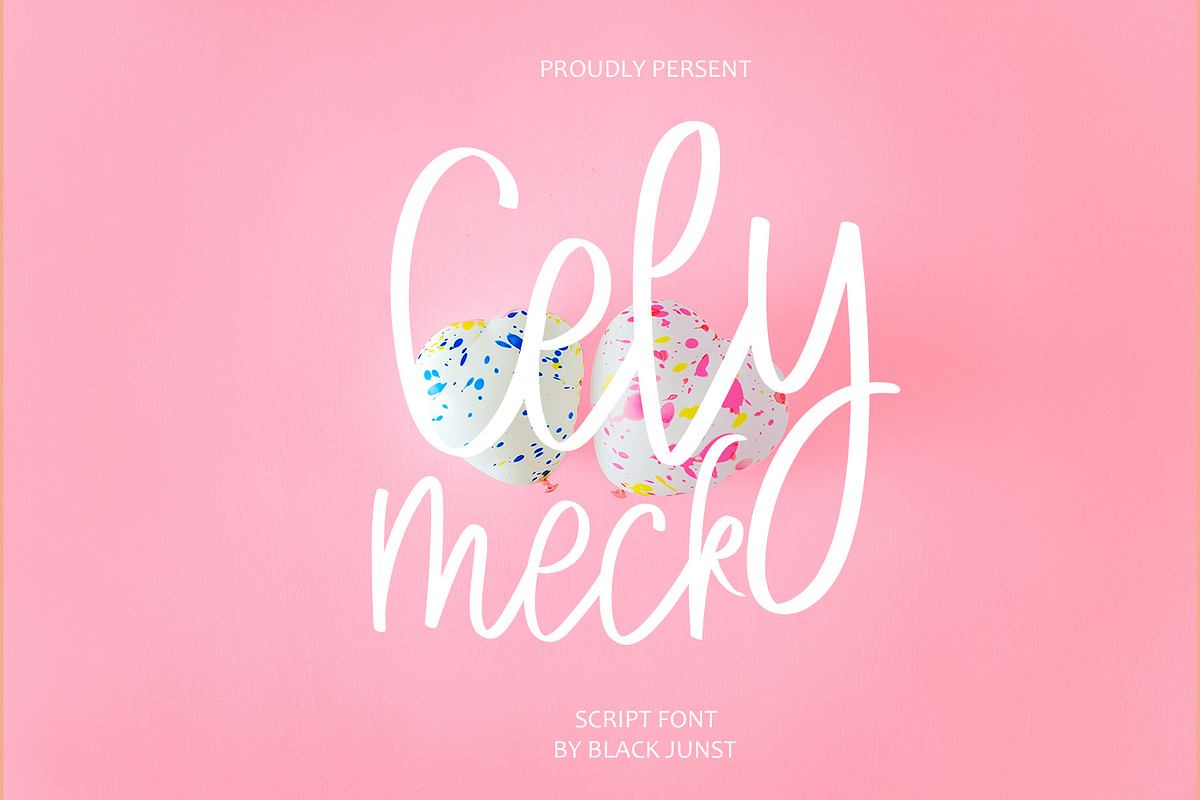
Cely Meck - Handwritten Free Download
Cely Meck Font Free Download is a charming handwritten typeface that brings a personal, organic touch to your designs. With its flowing strokes and elegant curves, this font is perfect for invitations, branding, greeting cards, social media graphics, and any project that needs a warm, human feel.
Its soft, natural letterforms make it ideal for creative and friendly projects, adding a stylish, yet casual aesthetic to your work. Whether you're designing a cozy brand identity or crafting heartfelt messages, Cely Meck delivers the perfect handwritten vibe. Cely Meck Font Free Download lets you explore its unique personality in personal projects before purchasing a commercial license.
Add a personal touch to your designs with Cely Meck — the handwritten font that feels like a note from the heart.